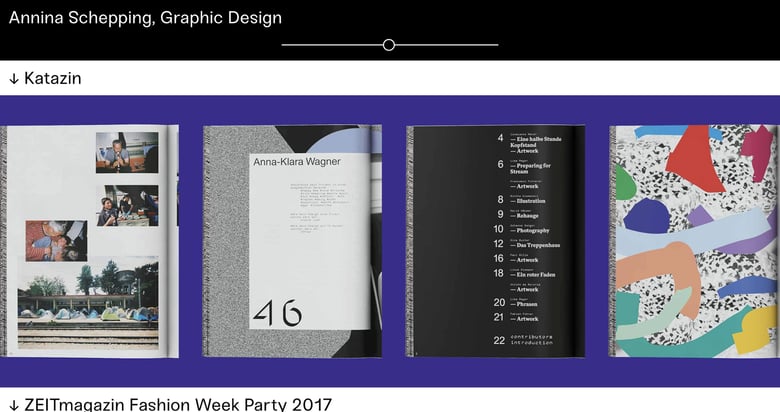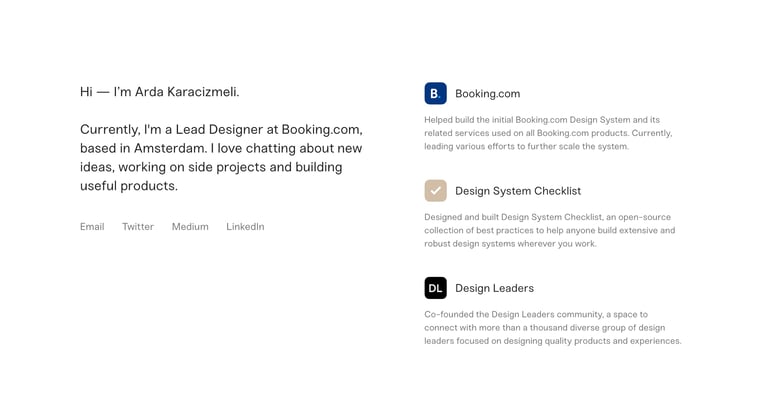
Sneak
Sneak’s neo-grotesque structure contains deliberately reversed characters, including its distinctive S. Tightype offers proportional weights with italics as well as a monospaced style. Those reversals provide a recognizable detail without requiring the whole word to take on a decorative outline.